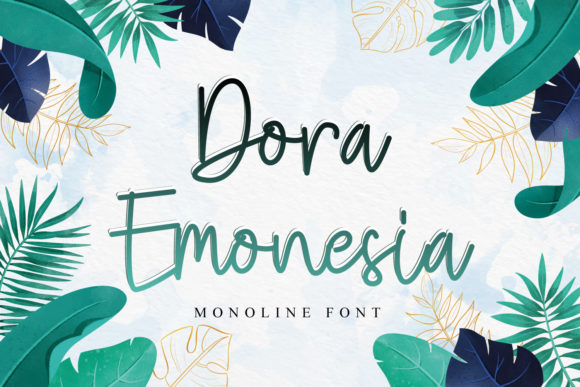
Dora Emonesia Font: Elevate Your Designs with Elegance and Timeless Style
Are you on the hunt for a font that exudes elegance, sophistication, and a touch of timeless charm? Look no further than the Dora Emonesia Font, a stunning flowing handwritten font that is sure to capture your heart. With its incredibly distinct and classic style, this font is perfect for designers and crafters looking to add a touch of luxury to their favorite projects.
The Essence of Dora Emonesia Font
Dora Emonesia is a beautiful, handcrafted font that boasts an elegant touch, making it ideal for a wide range of design applications. Whether you’re working on a branding project, creating stunning social media graphics, or crafting beautiful wedding invitations, this font is sure to impress. Its unique, flowing script style is both captivating and sophisticated, adding a touch of refinement to any design.
Key Features of Dora Emonesia Font
- Flowing Handwritten Style: Dora Emonesia features a beautiful, flowing script style that is perfect for creating elegant and sophisticated designs.
- Elegant Touch: This font boasts an elegant touch, making it ideal for high-end branding, luxury packaging, and refined design projects.
- Timeless Style: Unlike trendy fonts that quickly go out of style, Dora Emonesia’s classic style ensures it remains relevant and stylish for years to come.
- Distinct Character: With its unique and distinct character, this font is sure to make your designs stand out from the crowd.
Dora Emonesia Font is a versatile font that is perfect for a wide range of design applications, including:
- Branding and Logo Design: Create stunning logos and brand identities that exude elegance and sophistication.
- Social Media Graphics: Elevate your social media presence with beautiful, eye-catching graphics that showcase your brand’s personality.
- Wedding and Event Planning: Create beautiful wedding invitations, programs, and other event materials that reflect your special day’s elegance and style.
- Packaging Design: Add a touch of luxury to your product packaging with this stunning font.
Why Choose Dora Emonesia Font?
With so many fonts available, why choose Dora Emonesia? Here are just a few reasons why this font stands out:
- Unique Style: Dora Emonesia’s unique, flowing script style ensures your designs will stand out from the crowd.
- Elegance and Sophistication: This font exudes elegance and sophistication, making it perfect for high-end branding and refined design projects.
- Timeless Appeal: Unlike trendy fonts, Dora Emonesia’s classic style ensures it remains relevant and stylish for years to come.
If you’re looking for a font that embodies elegance, sophistication, and timeless style, look no further than the Dora Emonesia Font. With its unique, flowing script style and classic charm, this font is perfect for designers and crafters looking to elevate their designs. Whether you’re working on a branding project, creating social media graphics, or crafting beautiful wedding invitations, Dora Emonesia is sure to impress. So why wait? Fall in love with this stunning font and use it to create spectacular designs that leave a lasting impression.